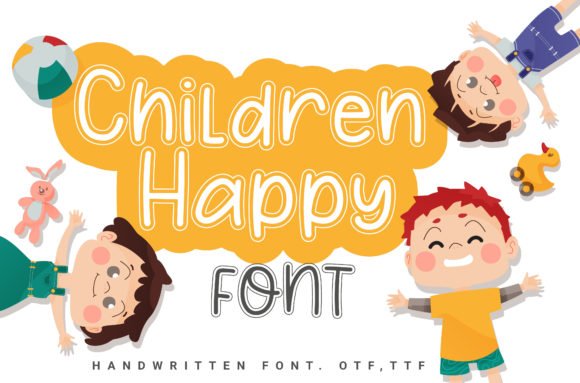
Unlock the Joy of Creativity with Children Happy Font
Remember the moment when you were a kid, and the simplest things brought you the most joy? Like coloring outside the lines, scribbling with crayons, or creating an epic masterpiece with finger paints? That spark of creativity is what drives us to create something truly special – like the Children Happy Font.
Introducing Children Happy Font, a delightful and playful handwritten font designed specifically for kids and school projects. This charming font is perfect for adding a touch of whimsy to your designs, from educational materials to fun party invitations. As a designer, you’ll appreciate the flexibility and versatility of Children Happy Font, which can be used to convey a sense of innocence and wonder.
Key Features of “Children Happy Font”
- Unique Design: The font is designed to be playful and fun, with bold lines and rounded shapes that evoke a sense of happiness and innocence.
Designer Review: Children Happy Font
Overall, I’m impressed with the Children Happy Font. It’s a bold, colorful font that’s perfect for kid-friendly projects, educational materials, or any design that needs a playful touch. ✨ The font is well-designed, with a clear and legible structure that’s easy to read.
The font’s unique style and quirky feel make it stand out from more traditional fonts. The use of bright colors and playful characters adds a fun and engaging element to any design. ✨ The font is also highly customizable, allowing designers to adjust the color palette, size, and style to suit their needs.
While the font is well-designed, there are some limitations to consider:
- ⚠️ Limited language support: The font may not be suitable for designs that require a wide range of languages.
- ⚠️ May not be suitable for formal or professional designs: The font’s playful style may not be suitable for formal or professional projects.
- ⚠️ Some characters may not be perfect: While the font is well-designed, some characters may not be perfect or consistent in their design.
Overall, I would recommend the Children Happy Font for designers looking for a playful and fun font for kid-friendly projects or educational materials. With some limitations to consider, it’s a great option for designers who want to add a touch of whimsy to their designs.
The Children Happy Font is perfect for:
– Children’s party invitations and decorations
– Educational materials and worksheets
– Children’s book covers and illustrations
– Marketing materials and advertisements targeting children and families.